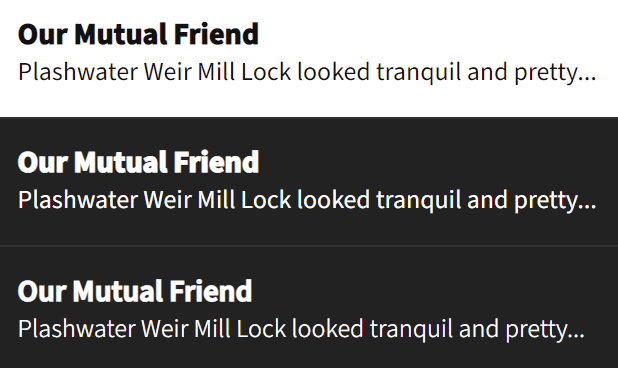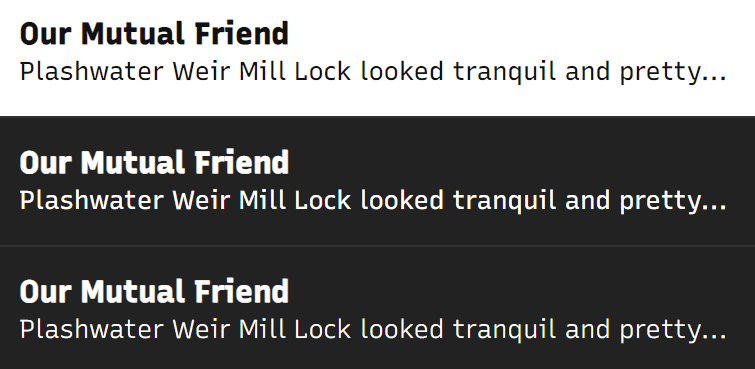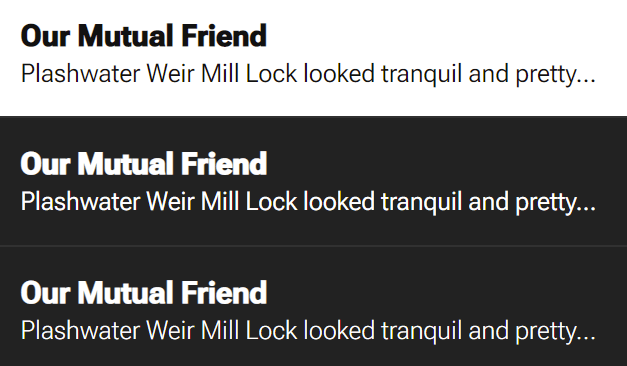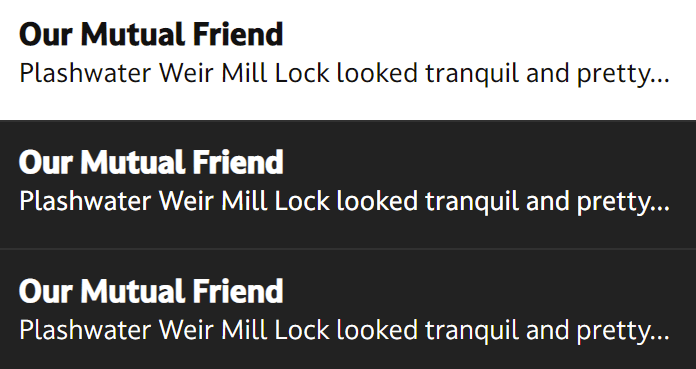
Black isn’t always slimming.
When recently testing a dark mode option for one of my sites, I experienced first-hand the issue that Robin Rendle addresses in this article. All of my page text — headings and body copy — appeared to bulk up when I switched to dark mode. And it didn’t matter what fonts I used or which browsers I tried. The same thing happened with all of them.
For example, here’s what happens with Adobe’s Source Sans Pro in Chrome for Windows:
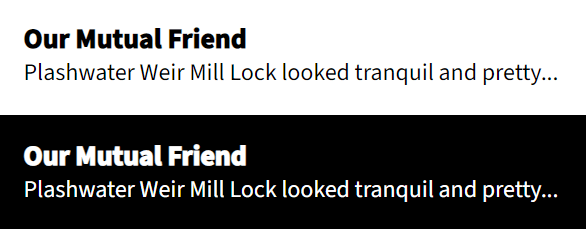
It’s not an illusion. The light characters really are heavier against dark backgrounds. We can zoom in to see better:
And it becomes really obvious when we invert the dark mode portions of those images:
One solution
Since variable fonts enjoy wide browser support, we can use them to help us address this issue. The three panels below demonstrate a solution we’ll be working toward:
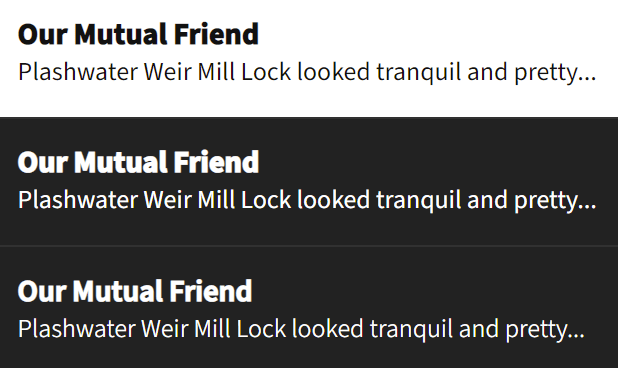
Here’s how we can get this improved effect:
- Reduce
font-weight
properties in dark mode via one of the following methods:- Manually changing each
font-weight
assignment directly in a dark mode media query. - Creating a single
--font-weight-multiplier
custom property that changes its value in dark mode, and by which we can then multiply by each element’s defaultfont-weight
value. - Same thing, but instead of calculating each element’s
font-weight
property individually, we take advantage of CSS variable scoping and the universal selector (*
) to apply our multiplier calculation everywhere at once.
- Manually changing each
- Adjust a variable font’s grade (“GRAD”) axis. Not all variable fonts support this specific feature, but Roboto Flex, does. Altering this axis value changes the font’s apparent weight, without affecting the width of the letters.
- Adjust a variable font’s darkmode (
"DRKM"
) axis. Dalton Maag’s aptly-named Darkmode, with its eponymous darkmode axis, is uniquely suited for this. As with the Roboto Flex’s grade axis, adjusting Darkmode’s darkmode axis changes the font’s apparent weight. But while the grade axis requires some fine-tuning of values, the darkmode axis is simply switched on (thinner) or off (regular).
The techniques in the first group work for most variable fonts. The solution Robin uses in his article is actually the very first item in the group. I’ll expand on the second and third items in the group by introducing custom properties that help us automatically adjust font weights in dark mode.
The second and third groups involve less common font-variation-settings
axes. Though these strategies apply to fewer typefaces, they may be preferable when available. The trick is knowing what a variable font supports before choosing it.
I’ve made a demonstration page including all the strategies covered in this article. You can see what some different variable fonts look like in light mode, in dark mode with no adjustment, and in dark mode with our solutions for thinning out characters.
In addition to the strategies listed above, there’s always one more option: don’t do anything! If you think your fonts look good enough in light and dark mode, or you don’t have the bandwidth right now to wrestle with reflow, element resizing, browser/display inconsistencies, and extra CSS to maintain, then you may not have to change a thing. Focus on the rest of your site and leave yourself open to the possibility of revisiting this topic later.
font-weight
value
Strategy 1: Reducing the Most variable text fonts have a weight axis, which lets us assign any specific font-weight
value within the weight range available to that font (e.g. 0-1000, 300-800, etc.). Each technique in this strategy takes advantage of this fine control over the weight axis to reduce font-weight
values in dark mode. (The need for such font-weight
precision is also what renders most non-variable fonts unsuitable for this solution.)
If you’re using variable fonts you have locally, you can check their axes and value ranges at Wakamai Fondue:
Keep in mind that, if you’re using the @font-face
rule to load fonts, you should set a font-weight
range for each of them at the same time:
If you neglect this step, some variable fonts may not properly reflect specific font-weight
values in current Chromium browsers.
font-weight
set to 800 in Chrome without (left) and with (right) a font-weight
range specified in the @font-face
rule.The basic solution: Manually entering each weight
Here’s the technique most of us may reach for. We create a dark mode media query in which we enter some font-weight
values that are a bit lower than their defaults.
-webkit-font-smoothing
(and-moz-osx-font-smoothing
), to see if they will do the trick, even without custom fonts? I think that would better attack the root of the problem, which is due to how the font anti-aliasing algorithms work with light text on dark backgrounds.Thanks for reading. You’re right that prefixed font-smooth can be useful for light text on dark backgrounds. I don’t include it here as a catchall solution, because it’s macOS-specific and has been removed from the CSS standards track (last I saw): https://caniuse.com/font-smooth. Keeping that in mind, if that solution helps you with the browsers your project targets, you can certainly consider it!